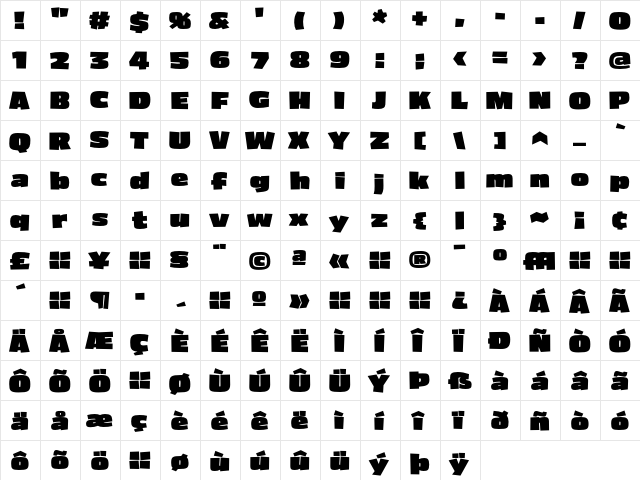
Asphalt Black
Design Context for Asphalt Typeface
Asphalt offers clean, dependable letterforms without strong stylistic allegiance, making it a practical choice for designers who need flexibility.
Pro Tip: Pair Asphalt with a font of contrasting weight or personality to build a more expressive typographic hierarchy.